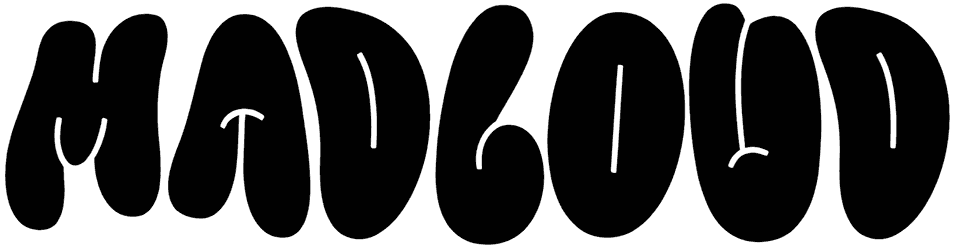
Blobby Chug Font
For digital artists who love fun and playful designs, Blobby Chug is a great font that can add a lot of personality to text. This cartoon font has hunky and windy characters that are dynamic and can attract all audiences of different ages like a magnet.
So why not run your subsequent children’s project with this balloon font to see how attractive a poster, advertisement, or packaging can be?